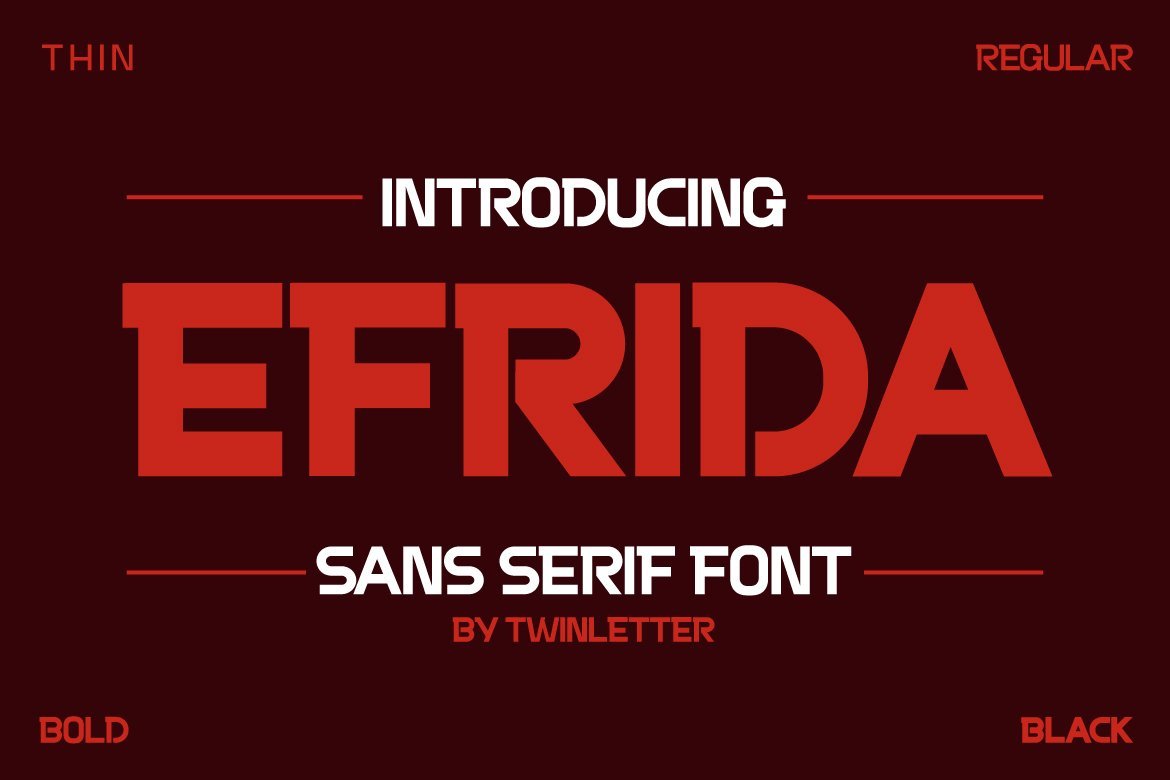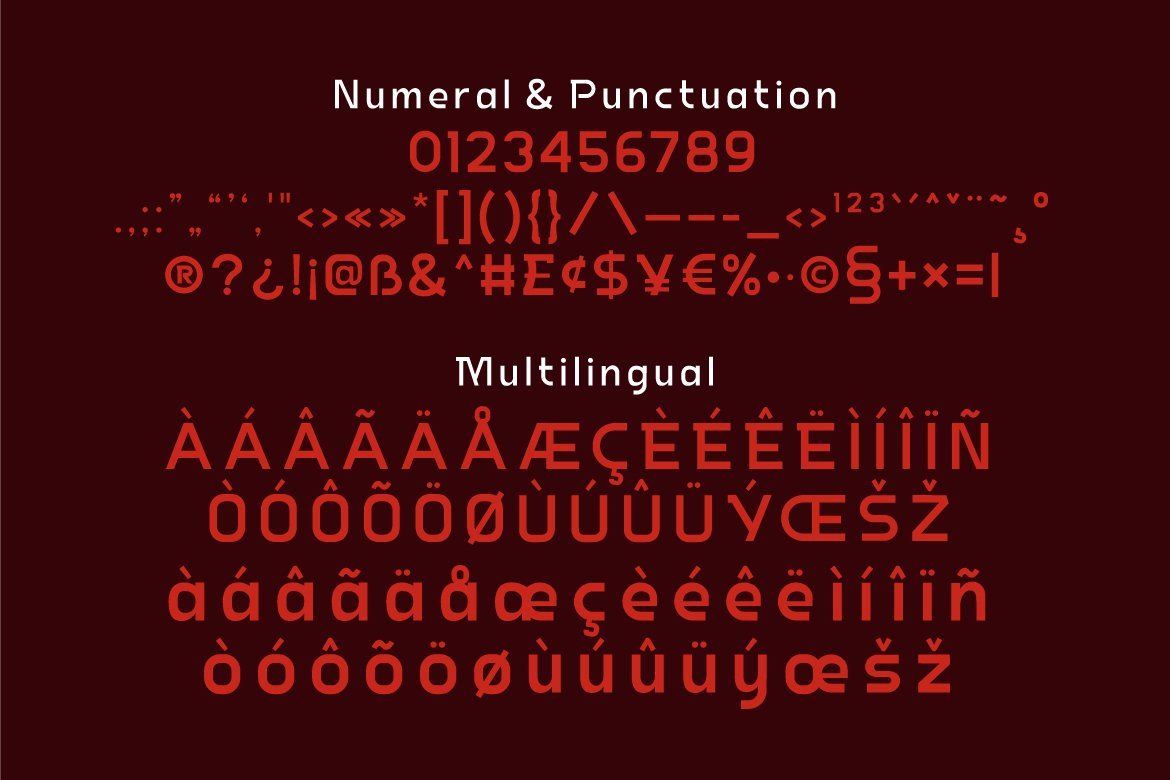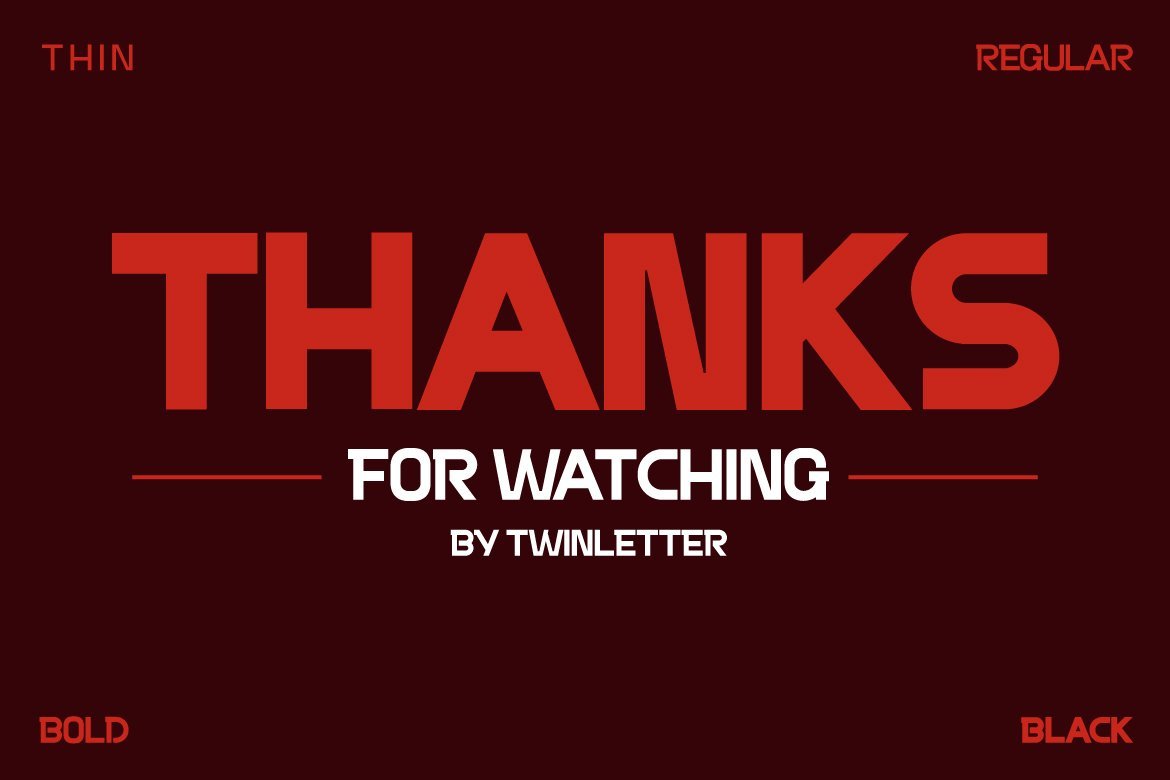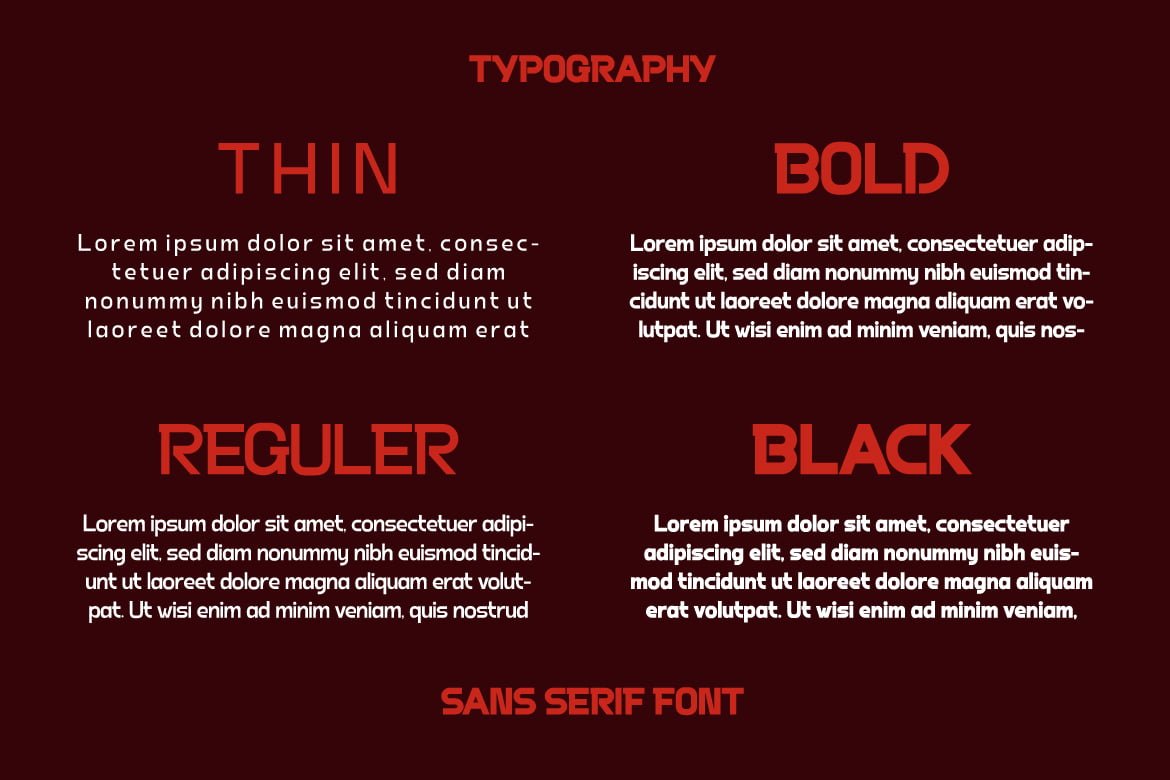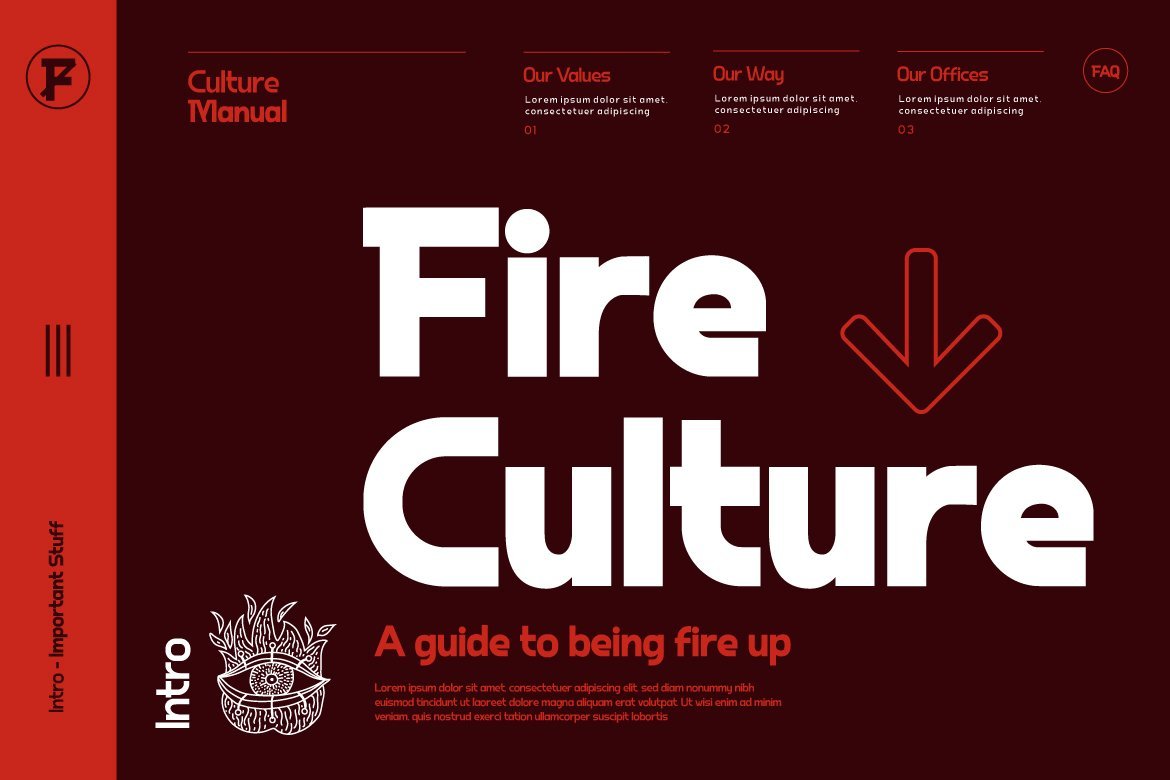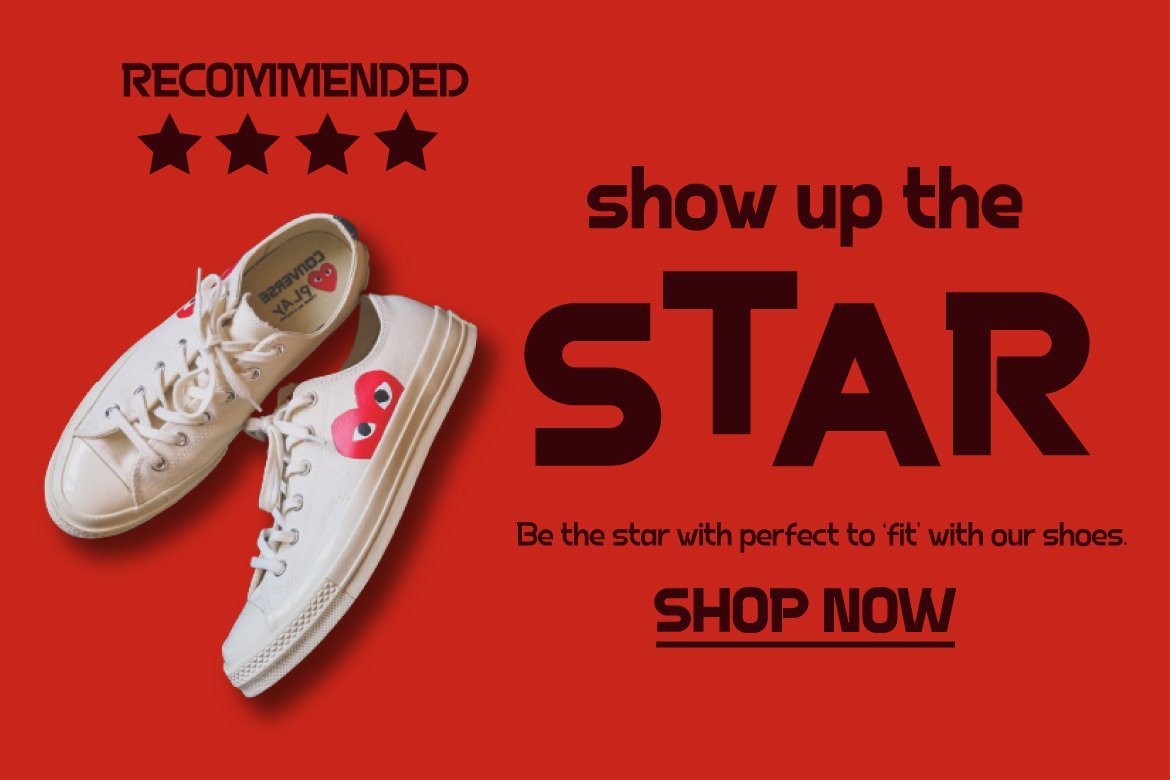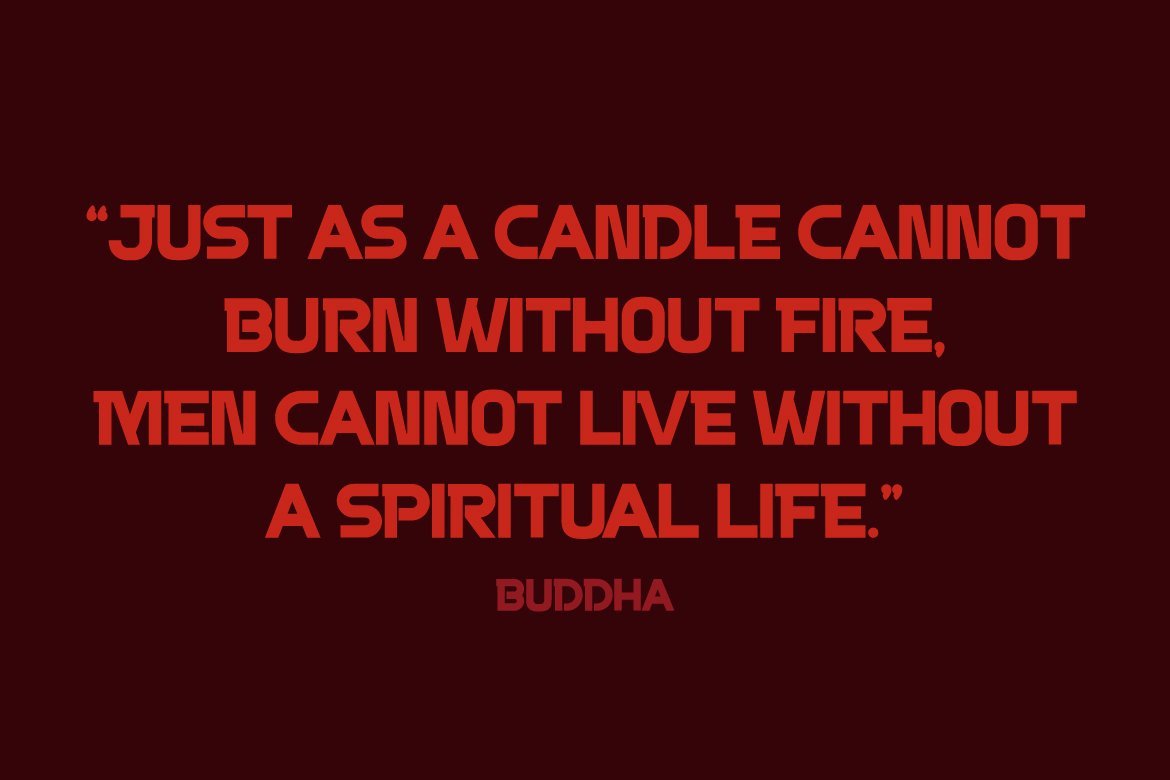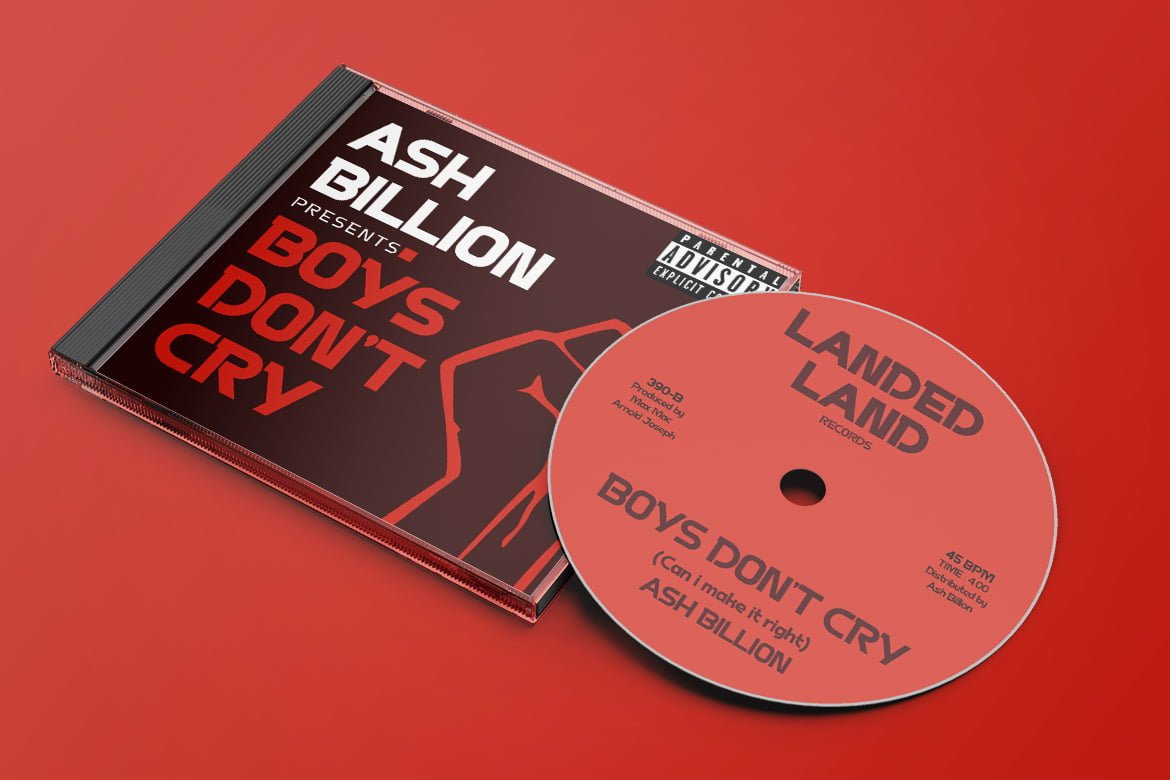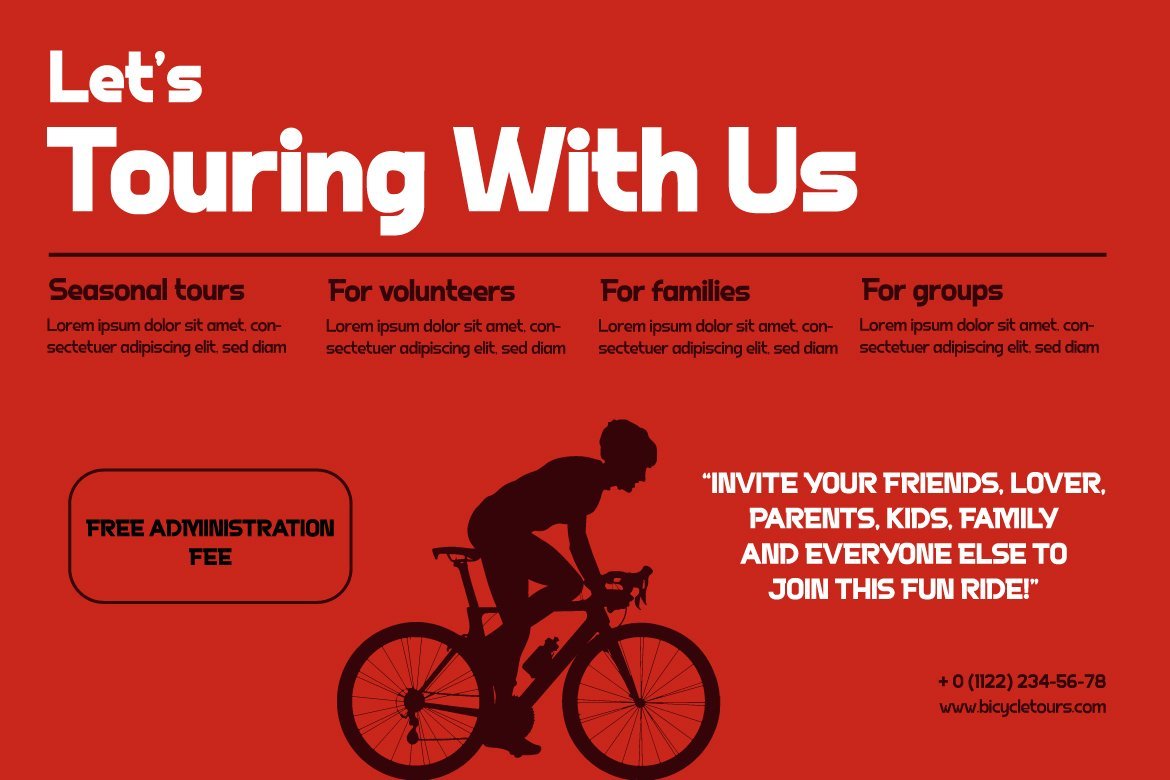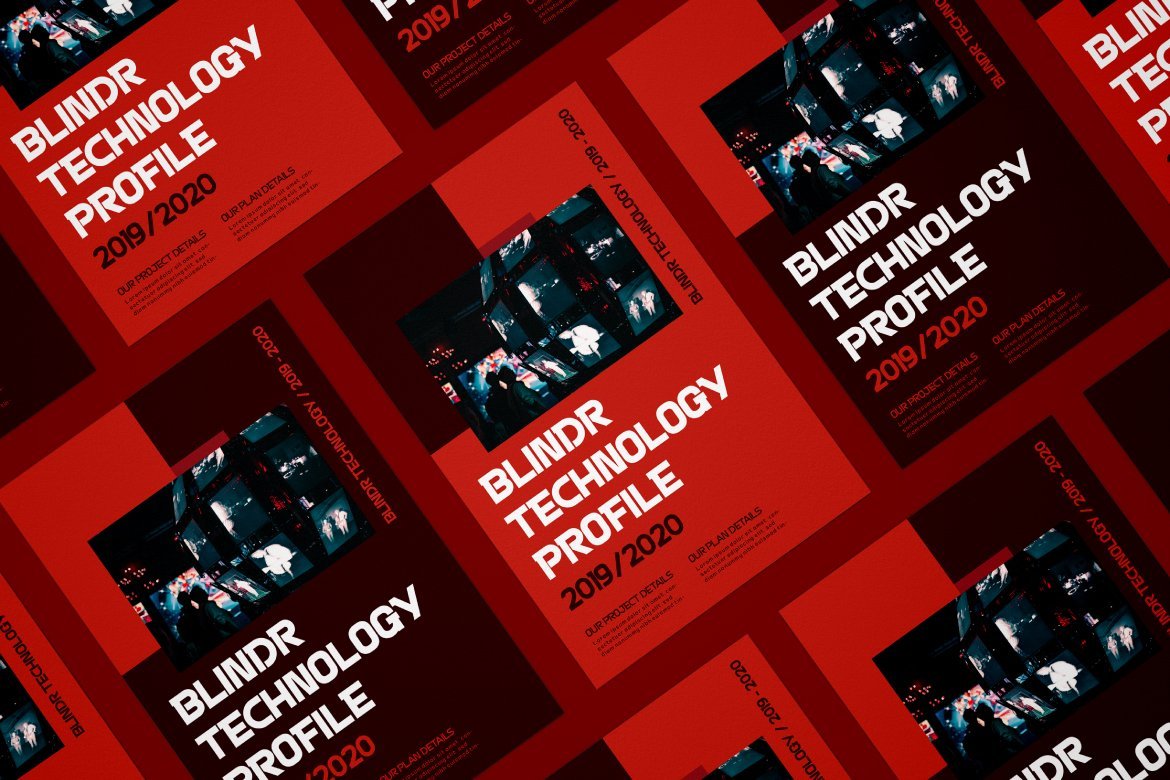
Efrida
Efrida is a sanserif font family with a sporty and maco feel.
Naturally, this typeface will make your diverse projects look attractive, distinct, and flawless. because we created it with great care so that you can use it for a variety of purposes in your amazing project
• Fonts include multilingual support for; Afrikaans, Albanian, Croatian, Czech, Danish, Dutch, English, Estonian, Finnish, French, German, Hungarian, Italian, Norwegian, Polish, Portuguese, Slovak, Slovenian, Spanish, Swedish